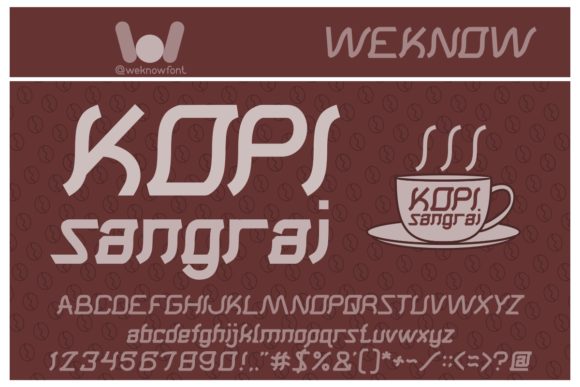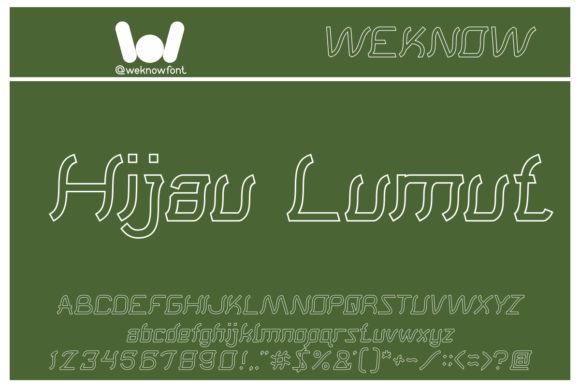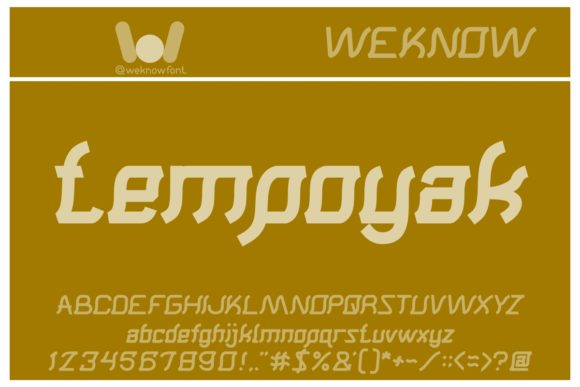
Introduction to Samurai in Uk Font
Samurai in Uk is a cool and techno looking display font.
This font would be ideal for writing web designs, business cards, or pretty much anything else that requires a unique touch .
Key Features of Samurai in Uk Font